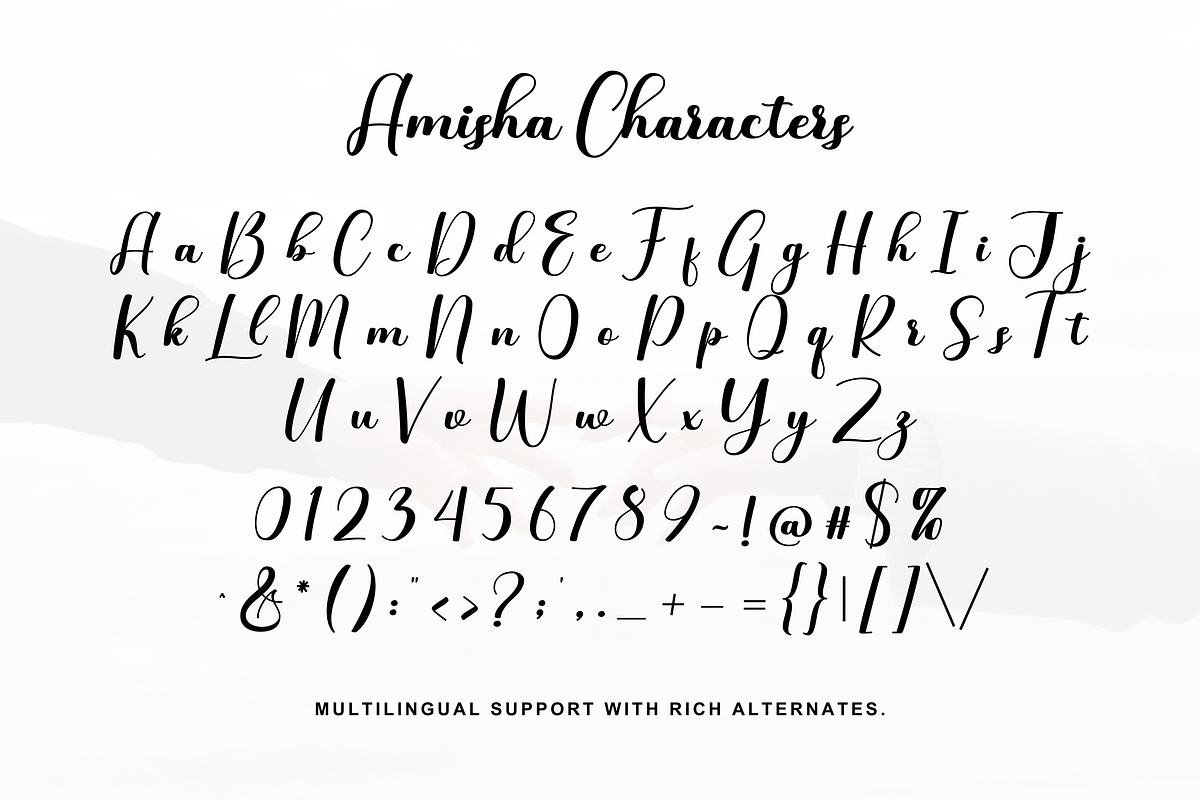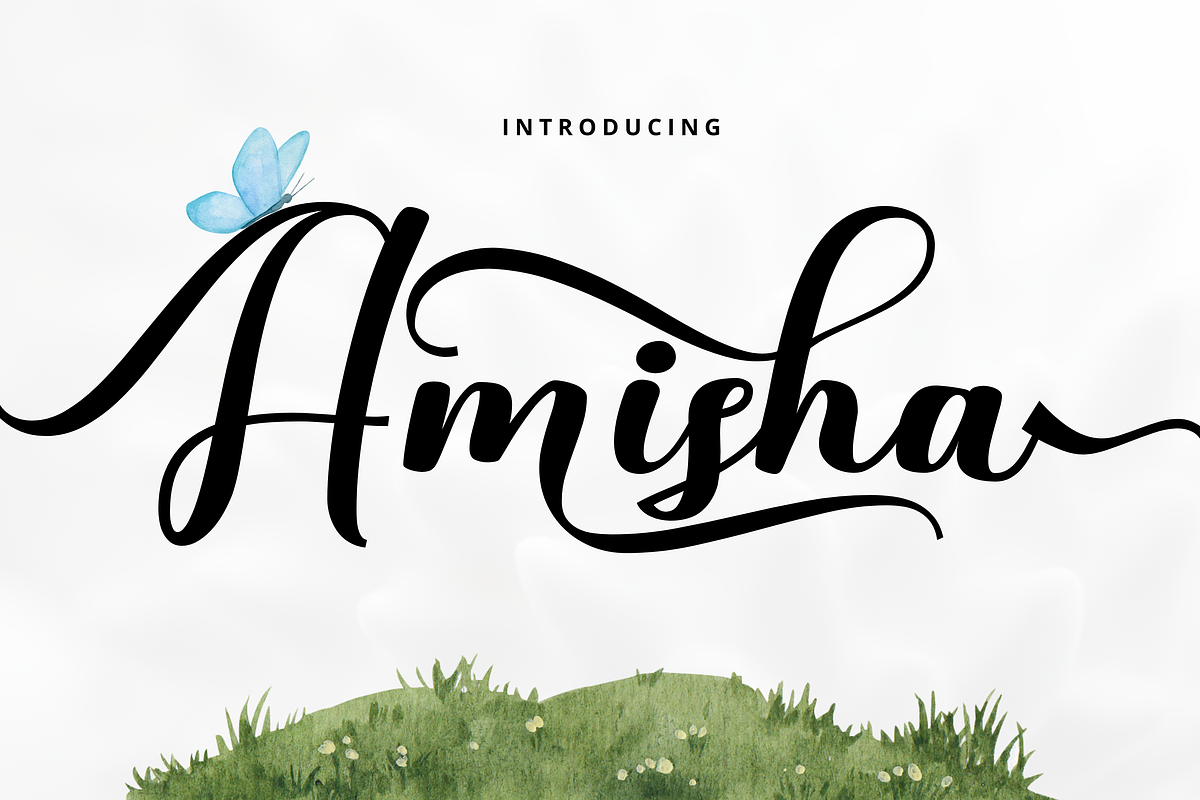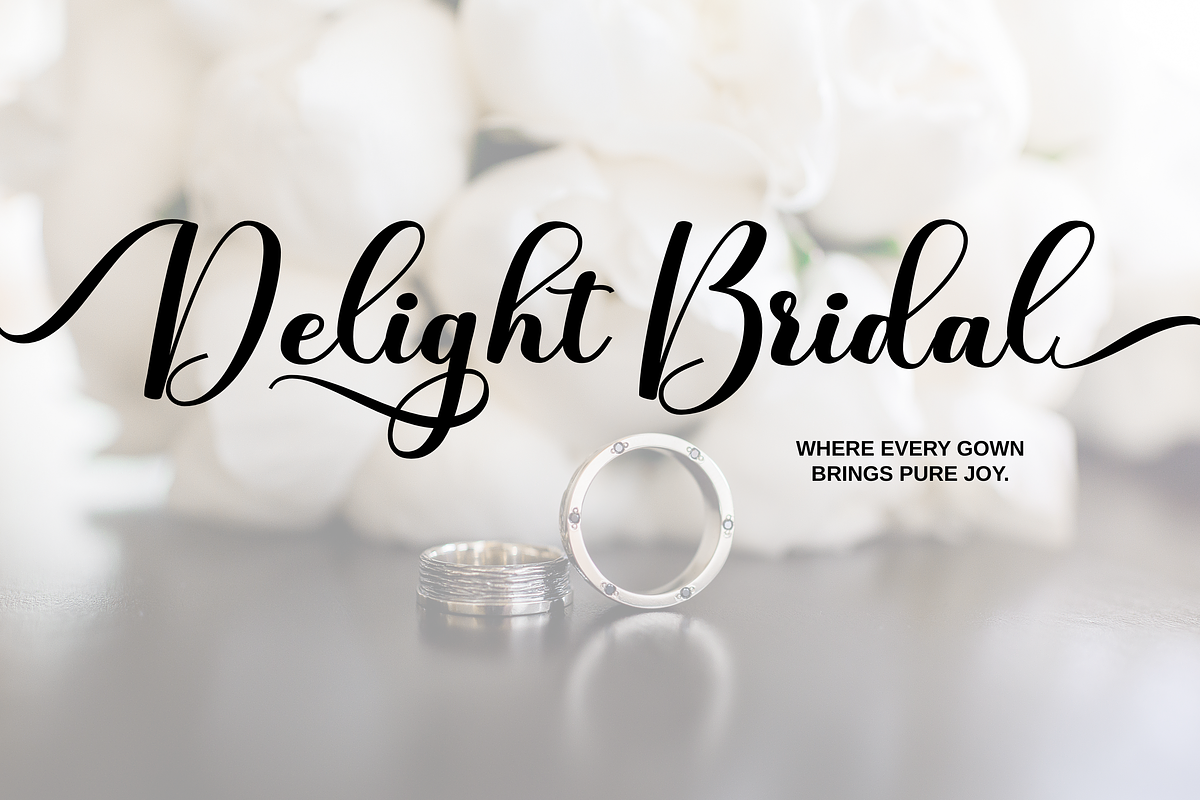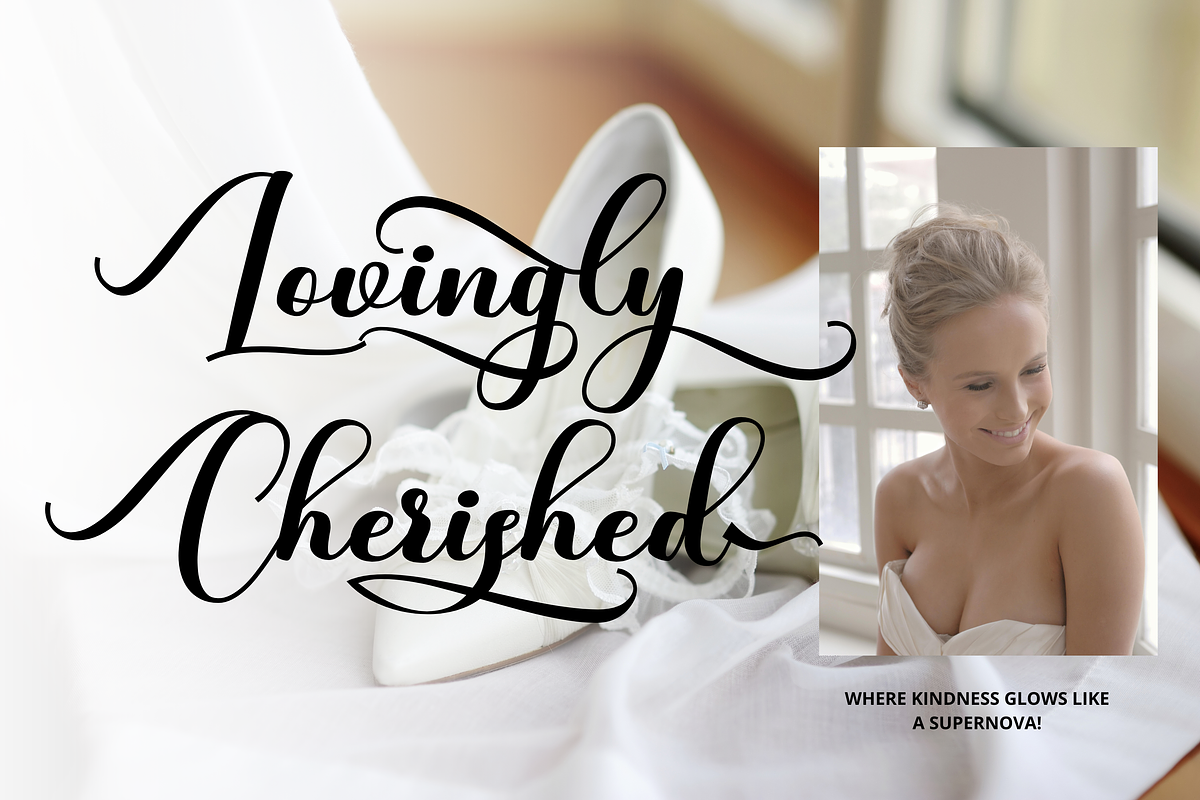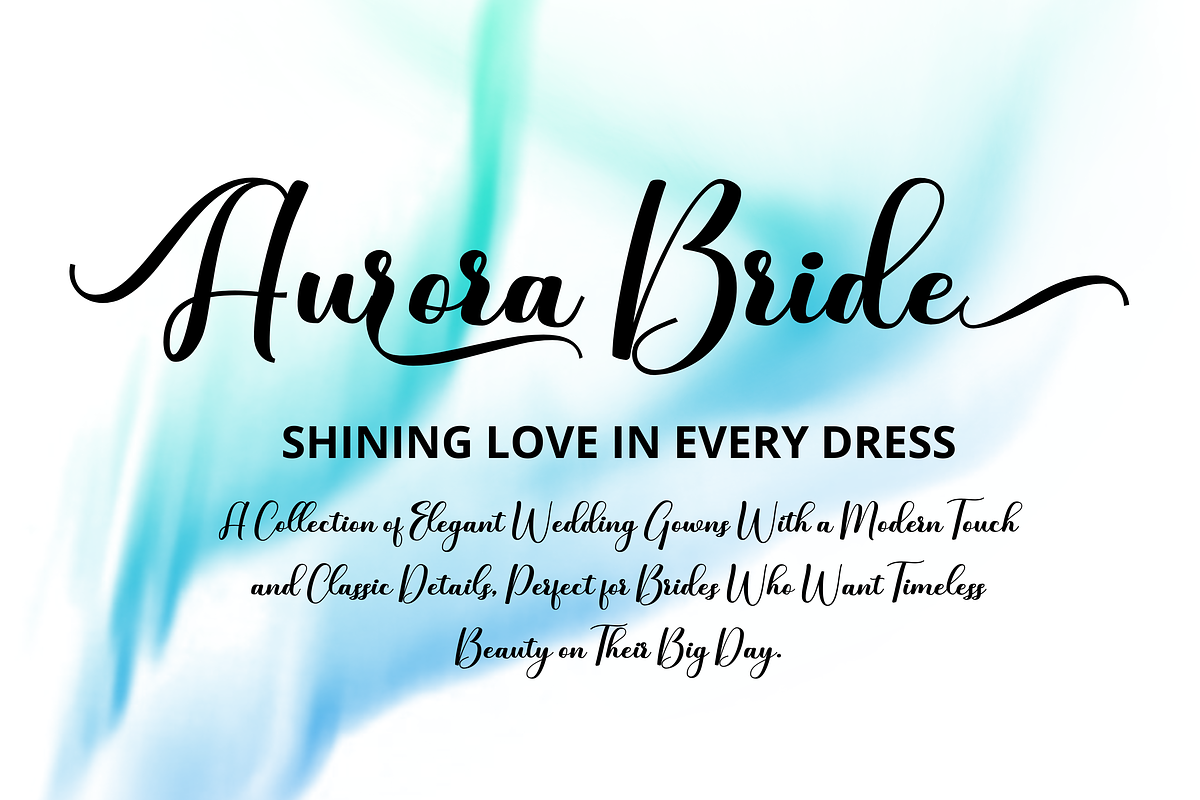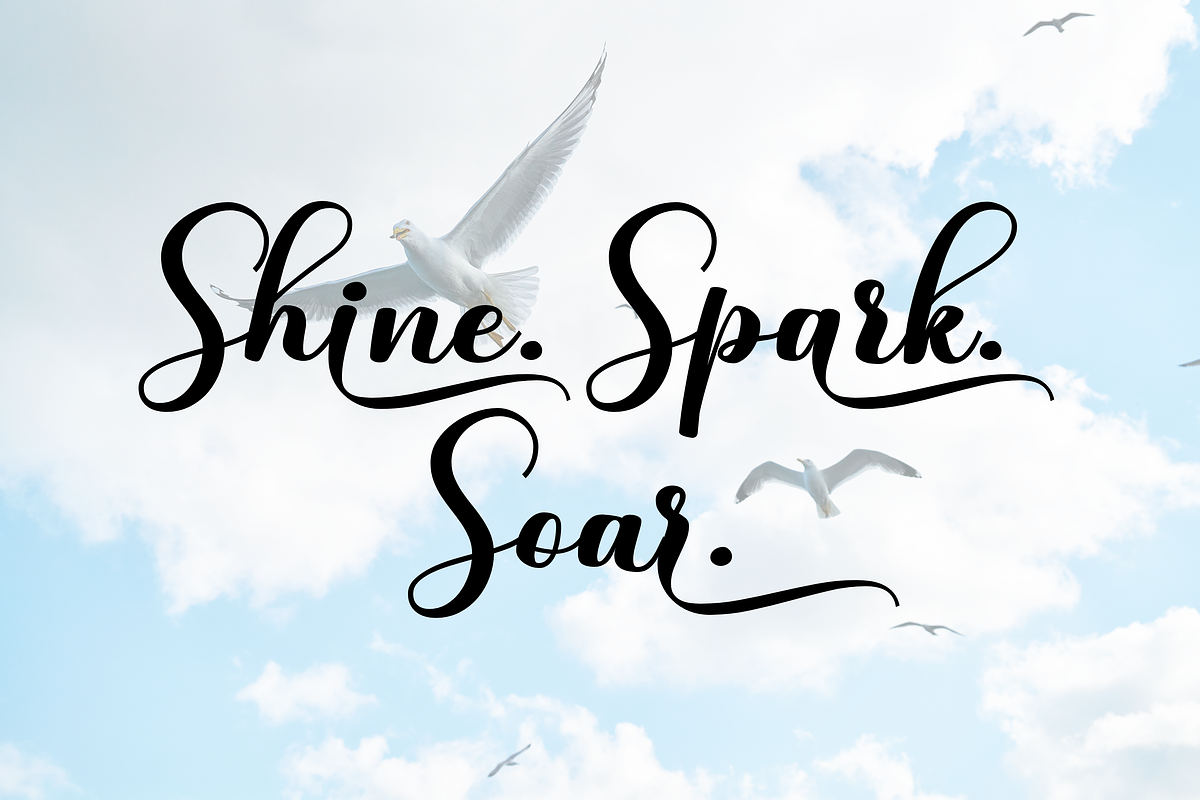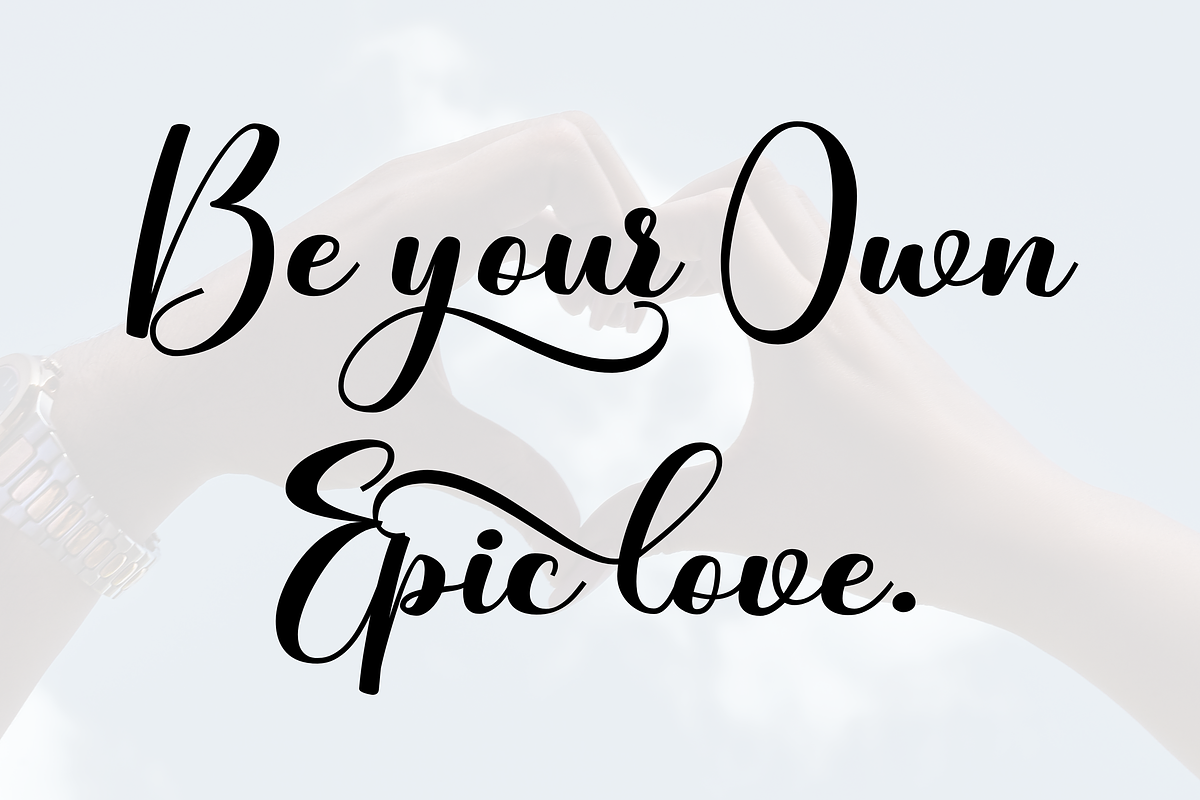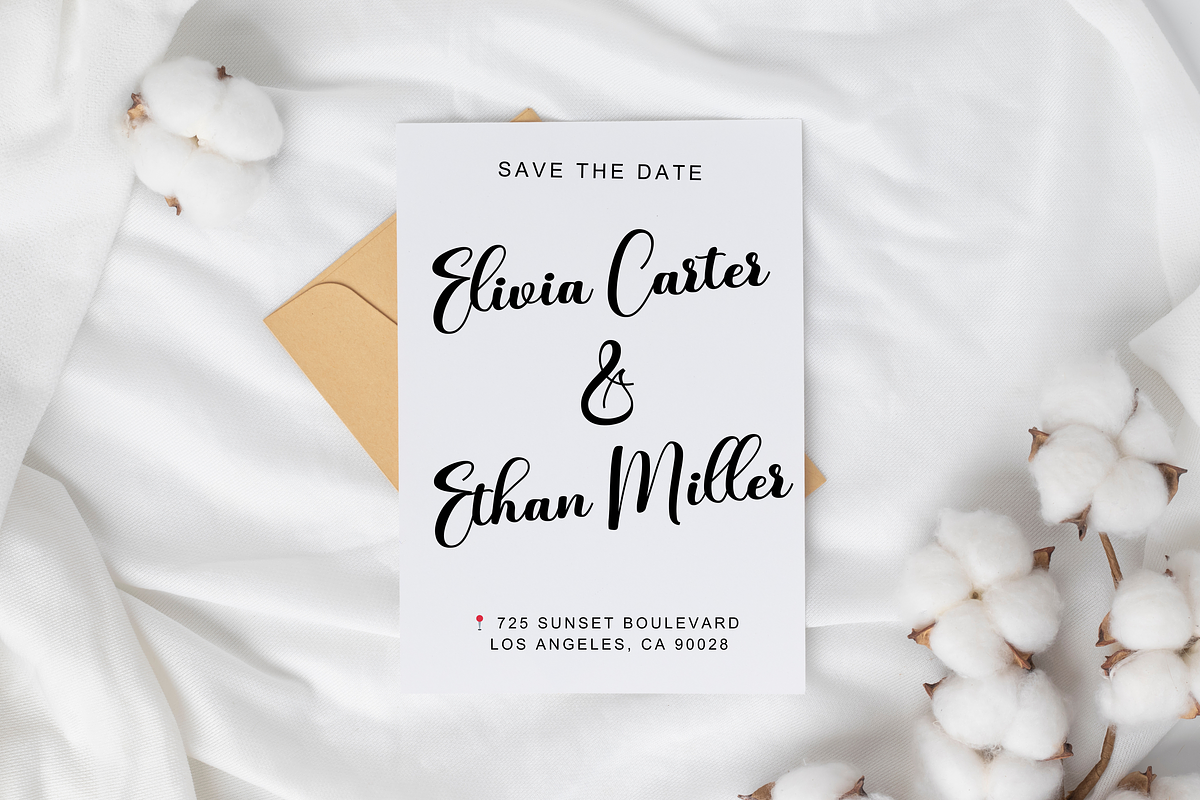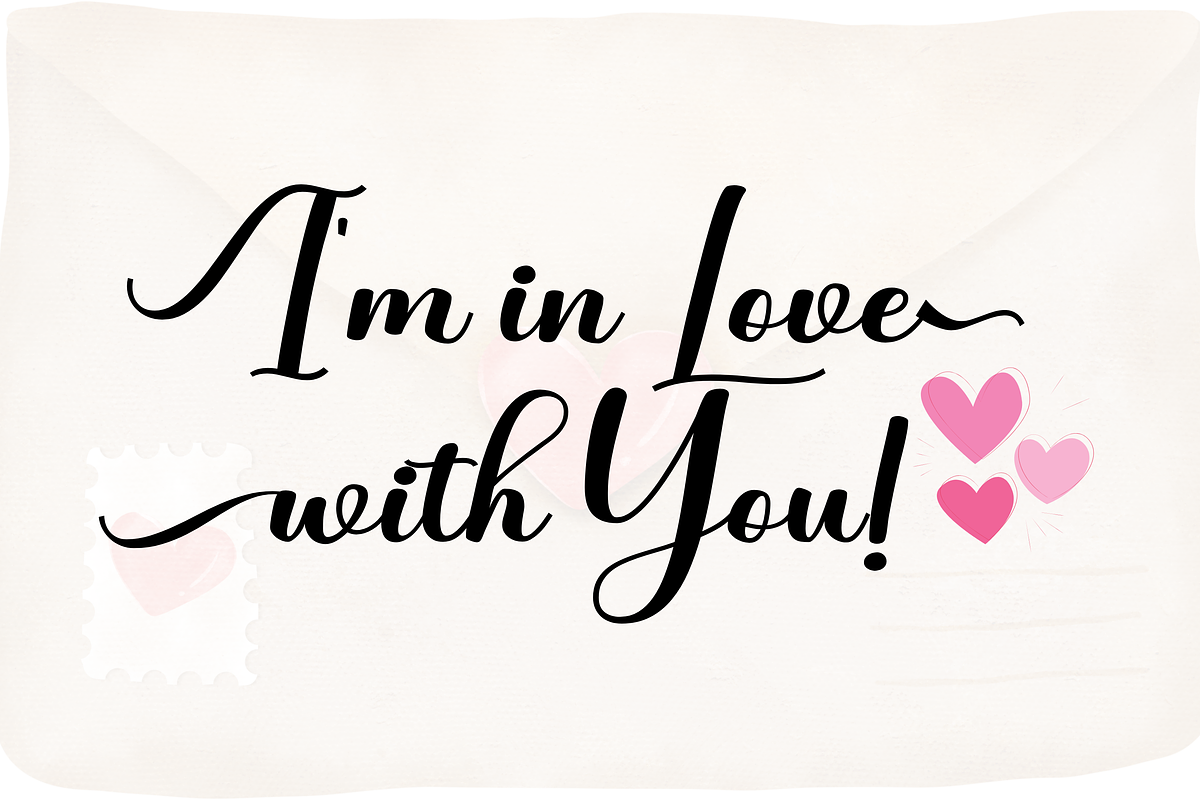
Amisha
Amisha is a charming script font that flows with soft curves and graceful movement — perfect for adding beauty and personality to your designs. Each letter carries a gentle rhythm, making it ideal for branding, wedding stationery, packaging, social media, and more.
Handwritten yet refined, Amisha brings warmth and timeless elegance to every project. From heartfelt messages to bold logos, it adds a feminine touch that feels both personal and inspiring.
✅ Features:
Uppercase & lowercase
Alternates & swashes